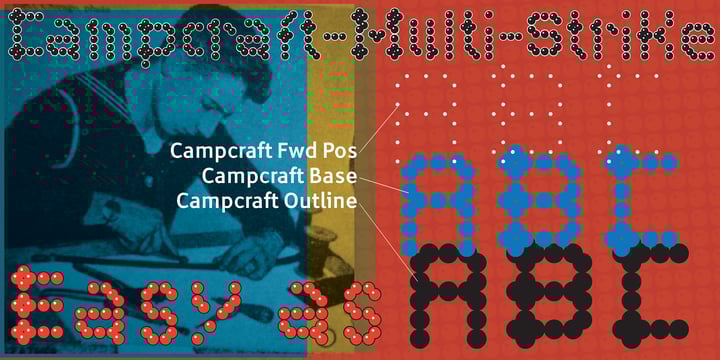
Campcraft
The Campcraft Font Family was designed by Russell A. McGorman and published by Our House Graphics. Campcraft contains 4 styles and family package options. More about this family
Remember those plastic Popsicle sticks that clicked together and you could make things from them with your sticky little fingers? Things like... camp crafts. Well, no� Of course you don't. You were too young. That�s why there is Campcraft.
This is a fun loving dot-matrix font, or it would be a fun loving dot-matrix if the vertical and horizontal grid lines didn't pile up at the intersections. Then again, it wouldn't be any fun if they didn't pile up at the intersections, would it?
Strictly a display type... Campcraft is excellent for what the name suggests. I goes well with Christmas sweaters, beaded jackets and purses and that time when we were all happy children with sticky little fingers.